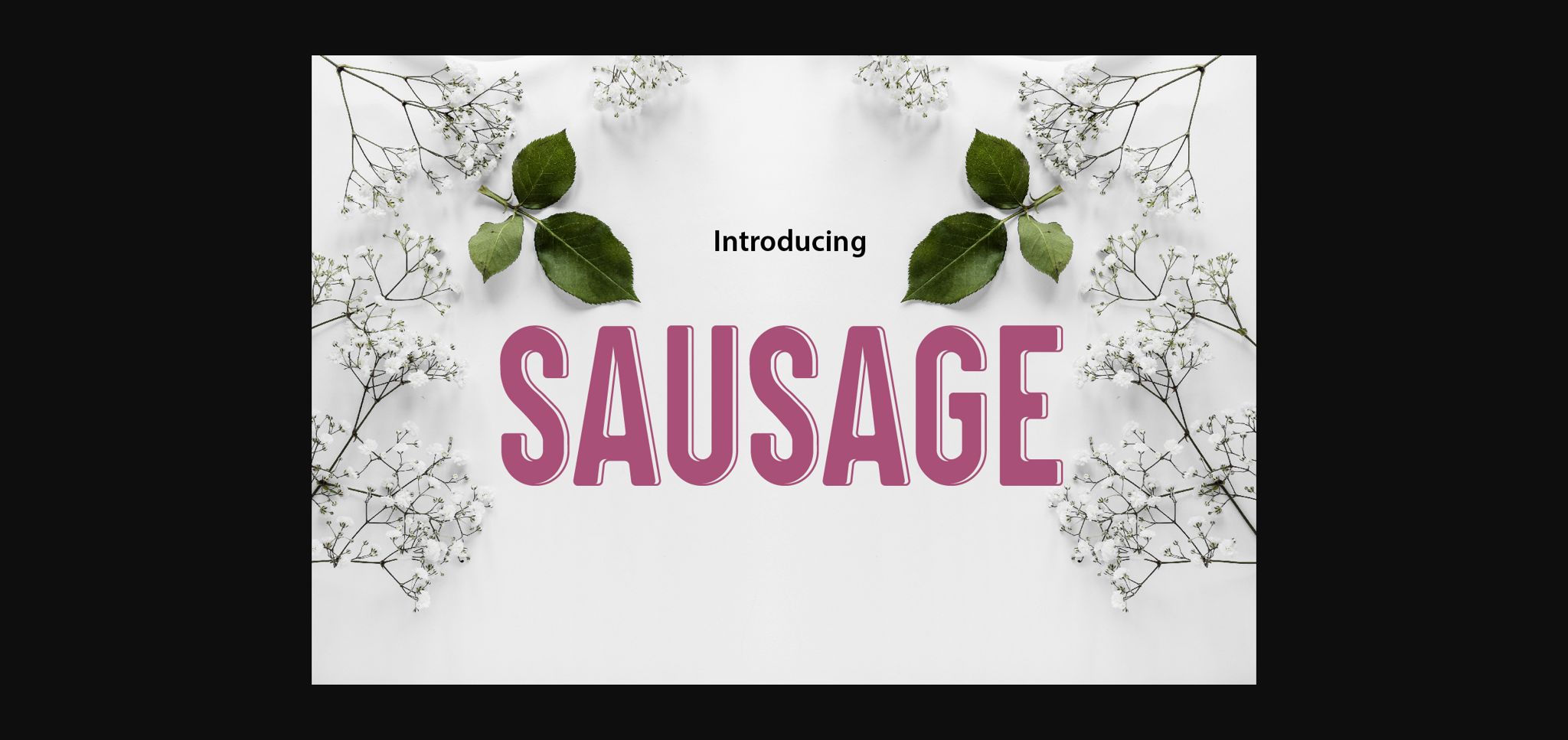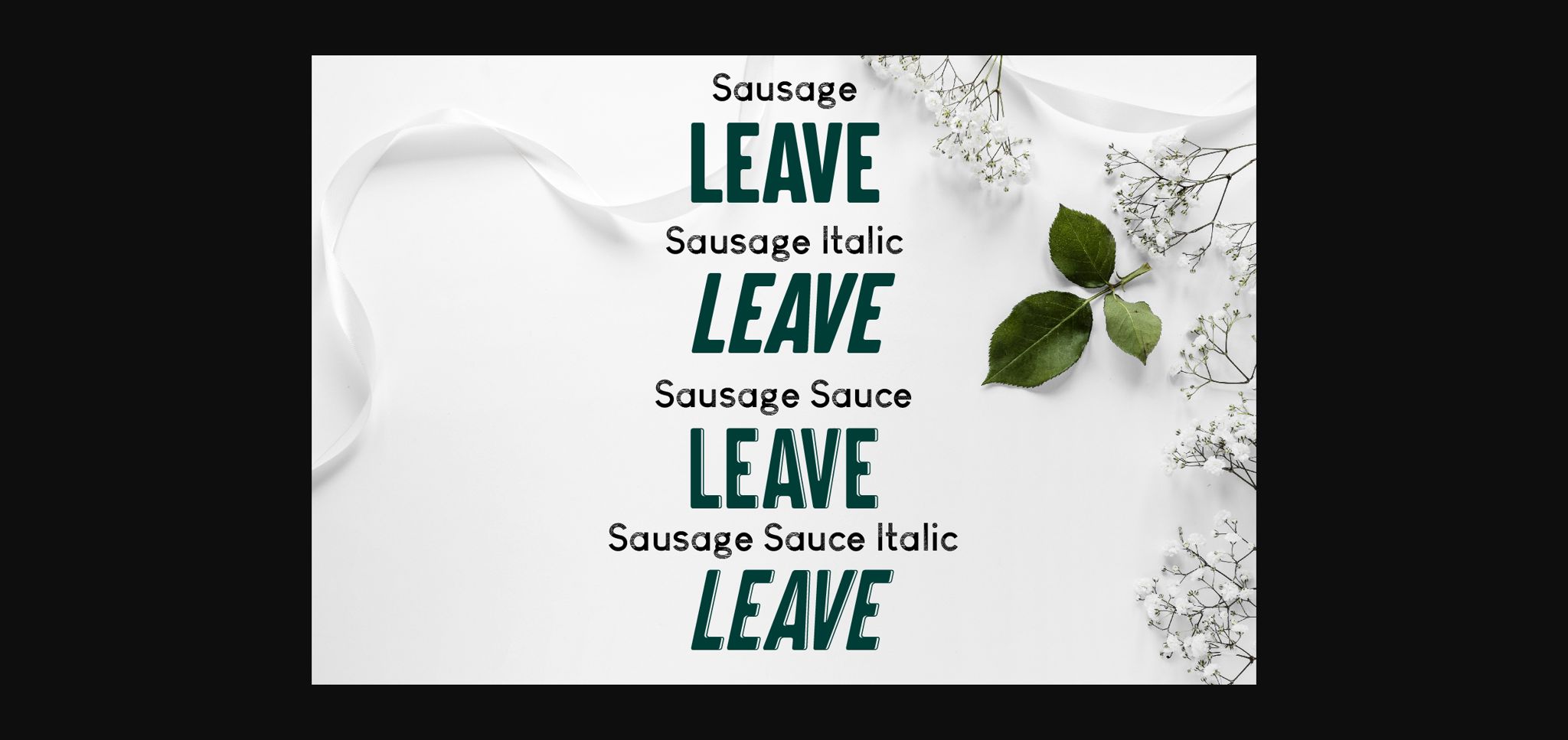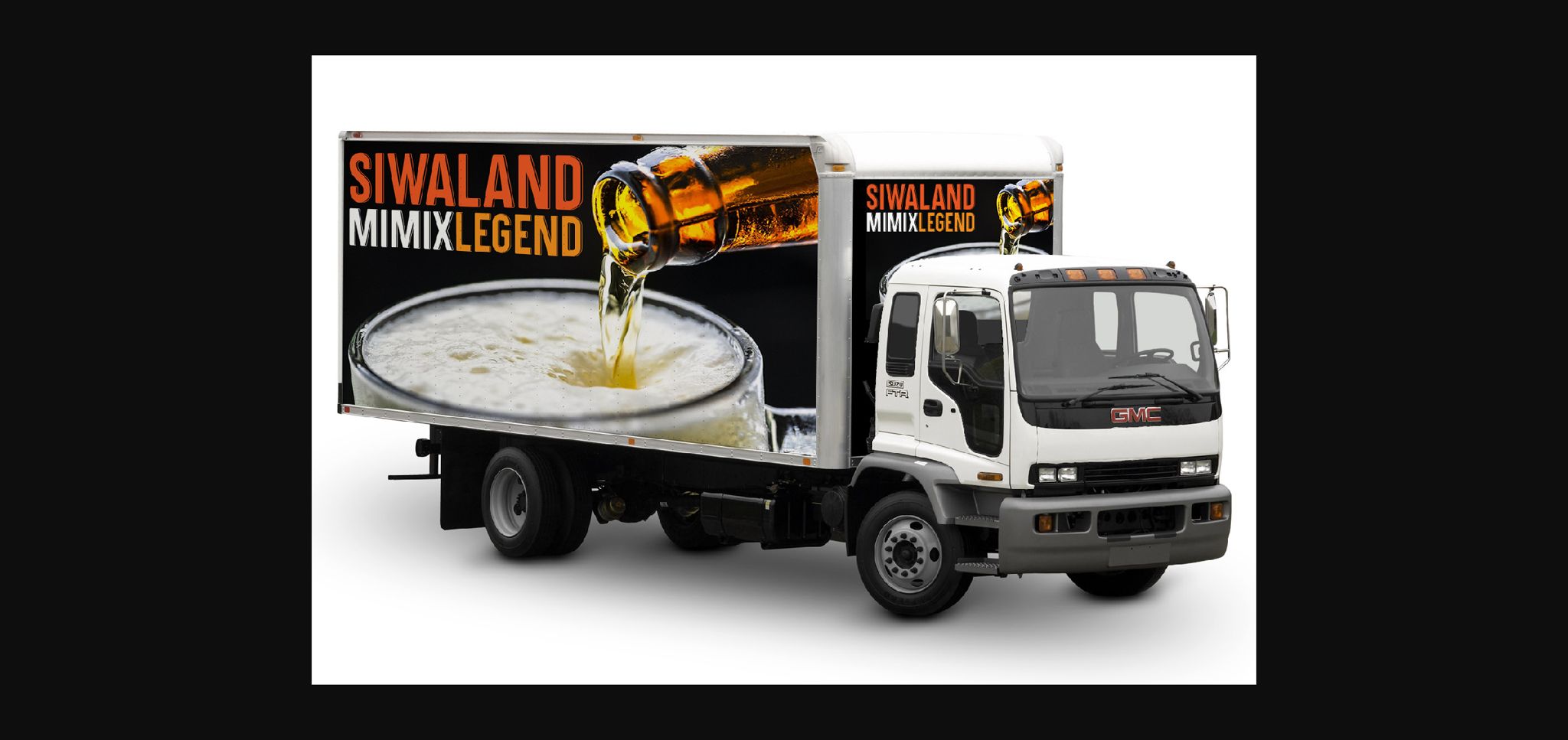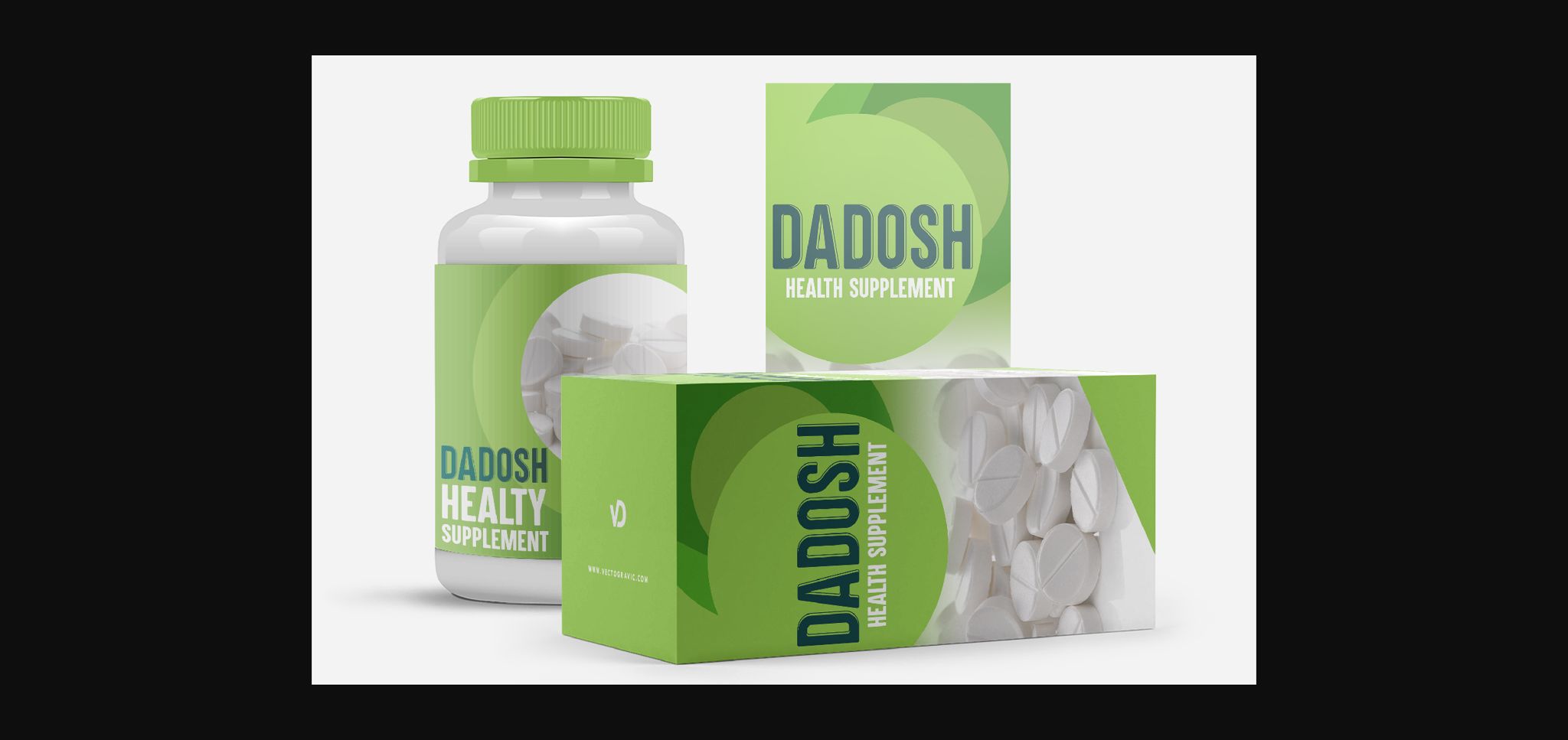
Sausage Font
About Sausage Font
Sausage is a bold and neat sans serif font. It can easily be matched to an incredibly large set of projects, so add it to your creative ideas and notice how it makes them stand out!